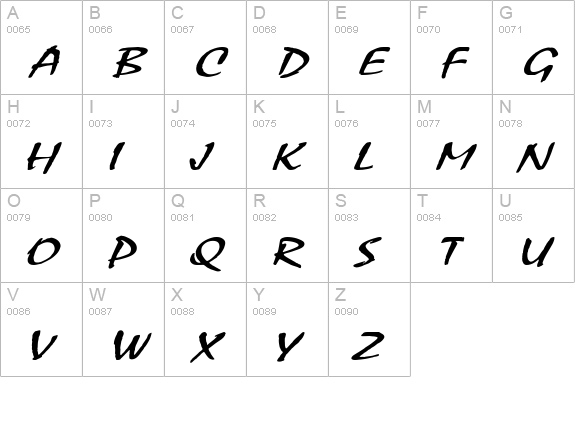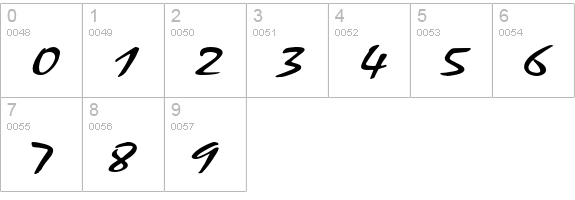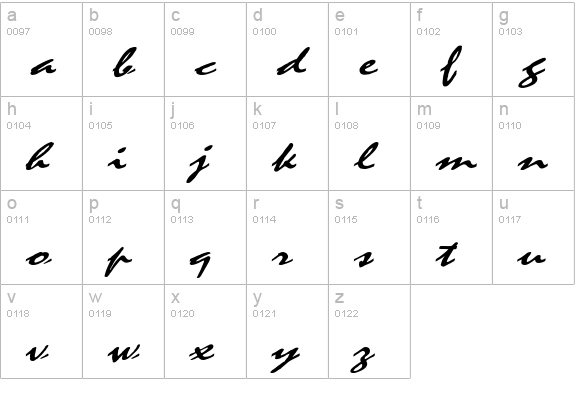
Mystic Extended Italic is a distinctive, extended-width, italic variant in the Mystic typeface family \xE2\x80\x94 well suited to design and typography projects.
Introducing Mystic Extended Italic font - a unique and enchanting typeface that exudes mystery and elegance. Its slanted and elongated letterforms create a sense of fluidity and intrigue, making it perfect for adding a touch of mystique to your designs. This free font is ideal for projects that require a sophisticated and otherworldly look, such as branding, invitations, packaging, and more. With its delicate curves and graceful lines, Mystic Extended Italic font will captivate your audience and leave a lasting impression. You can freely download Mystic Extended Italic font at FontsMarket.com, where you'll find a vast collection of high-quality fonts for all your creative needs. Enhance your designs with this captivating typeface and let its mystic charm elevate your work to new heights.